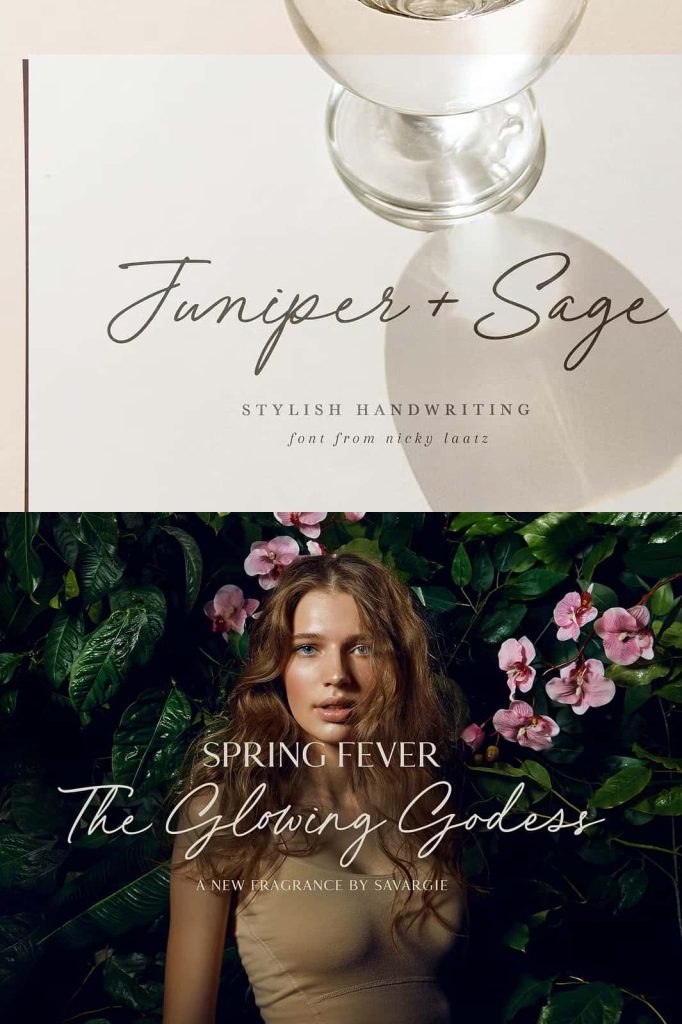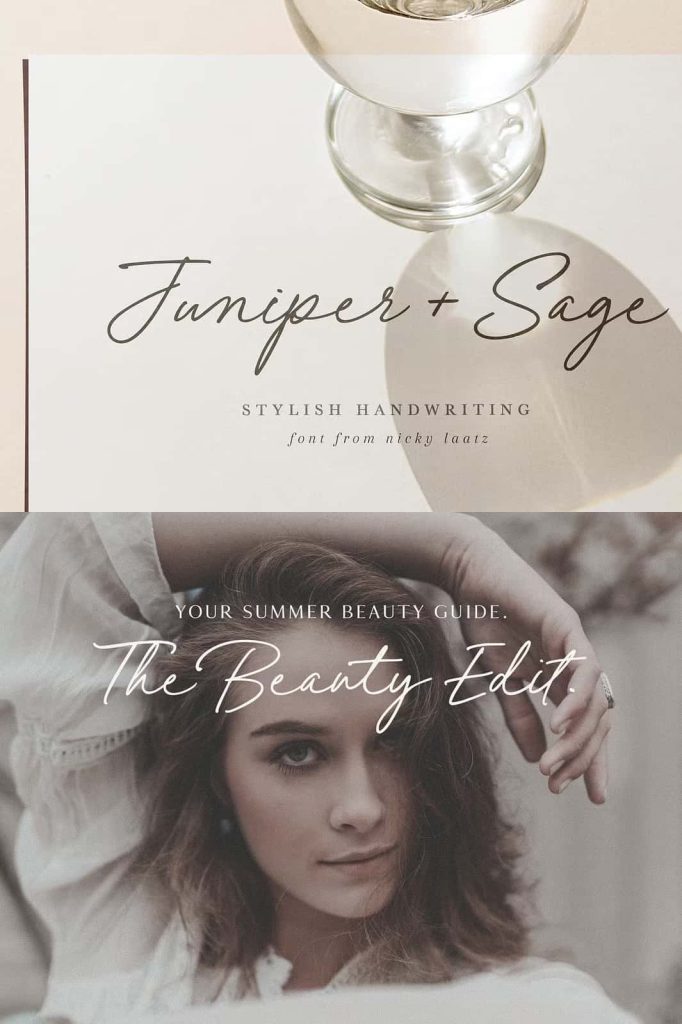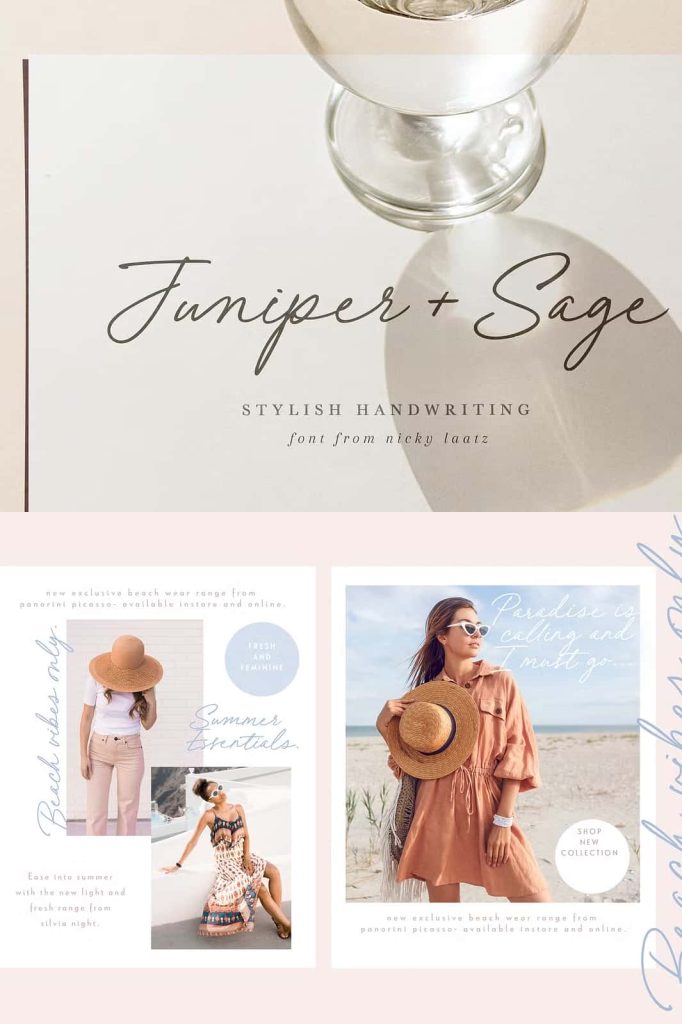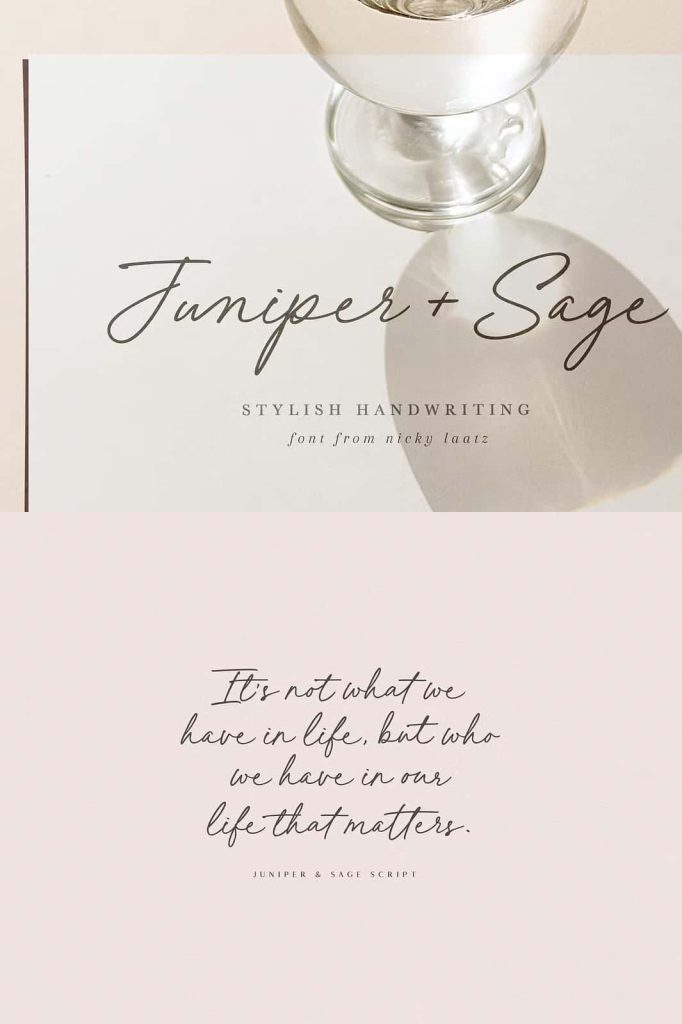
Juniper and Sage ScriptleastedJuly 1, 2025Fonts Let Juniper and Sage Script whisk you away for a romantic rendezvous with your love of handwritten scripts. Download